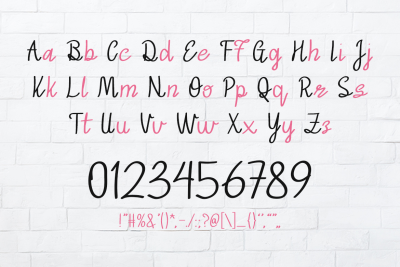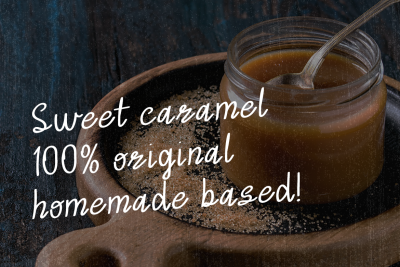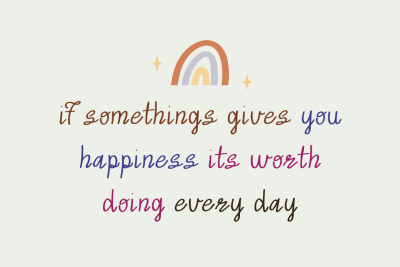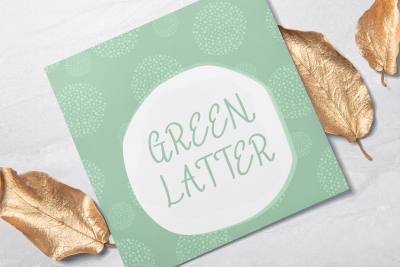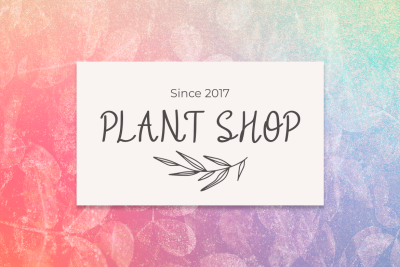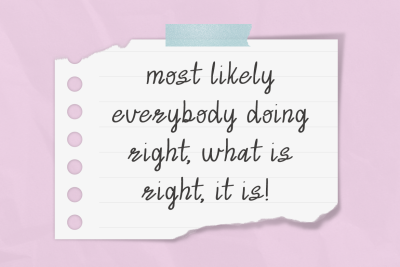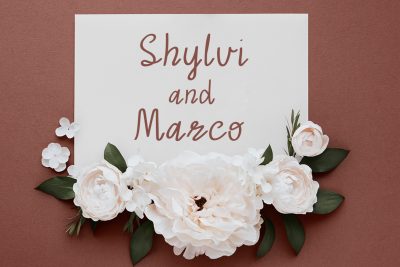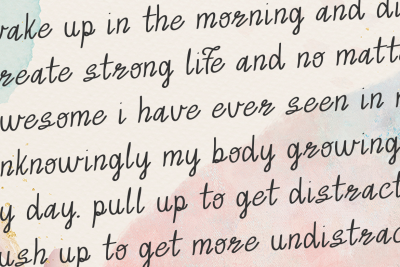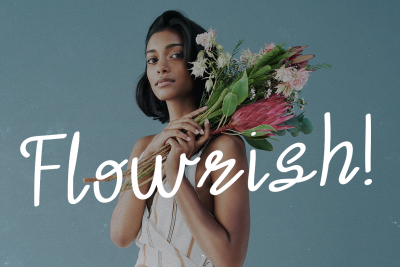
A Stylish Handwritten Font
Handwriting Font ALMIRA offers warmth, elegance, and personality to any design. With smooth curves and a natural handwritten feel, it adds authenticity and charm. Moreover, ALMIRA strikes a balance between casual and sophisticated, making it ideal for designers seeking uniqueness. Its well-crafted strokes and artistic flow ensure that every word looks effortlessly stylish, making it suitable for both modern and classic design aesthetics.
ALMIRA mimics real handwriting with a modern twist. Additionally, each character maintains harmony and readability while preserving organic imperfections. Whether for branding, invitations, or social media, it exudes a friendly yet professional vibe. Furthermore, featuring ligatures, alternates, and swashes, ALMIRA allows customization for a natural flow. Supporting multiple languages, it effectively caters to global creatives. The fontโs fluidity makes it perfect for projects that require a personal, handcrafted touch, such as artistic posters, signature-style logos, and personalized stationery.
Handwriting Font ALMIRA Perfect For:
- Brand Designers: Ideal for logos, branding, and packaging, giving brands a stylish and approachable identity. Consequently, it enhances brand recognition and leaves a lasting impression.
- Wedding & Event Planners: Great for invitations, greeting cards, and event posters with a romantic touch. As a result, it creates an emotional connection with recipients, making special moments even more memorable.
- Social Media Creators: Enhances posts, story highlights, and captions with warmth and personality. Thus, it helps content stand out and engage audiences, ensuring visually appealing posts that attract more interactions.
- Small Business Owners: Perfect for product labels, business cards, and promotional materials. Therefore, it boosts professional appeal and brand trust, making businesses more relatable and visually attractive.
- Lifestyle Bloggers & Content Creators: Adds elegance to blogs, websites, and digital products. Similarly, it improves readability and aesthetic appeal, allowing content to look effortlessly chic and engaging.
- Crafters & DIY Enthusiasts: Perfect for handmade products, templates, and custom gifts. Consequently, it brings a unique and artistic touch to projects, making each creation feel truly special and one-of-a-kind.
Final Thoughts
Elegant yet approachable, Handwriting Font ALMIRA is a must-have for designers. Whether for branding, digital content, or print, it brings sophistication and personality. Ultimately, it ensures your designs stand out effortlessly. By incorporating ALMIRA into your creative projects, you add a touch of elegance that feels both personal and professional, making it a versatile and invaluable addition to any font collection.